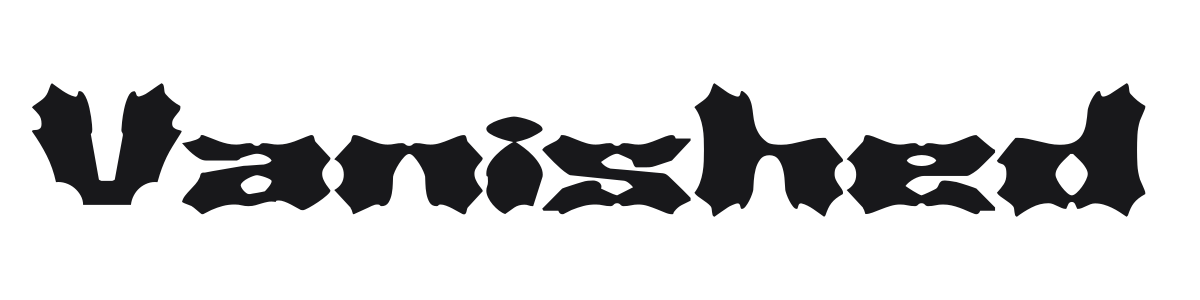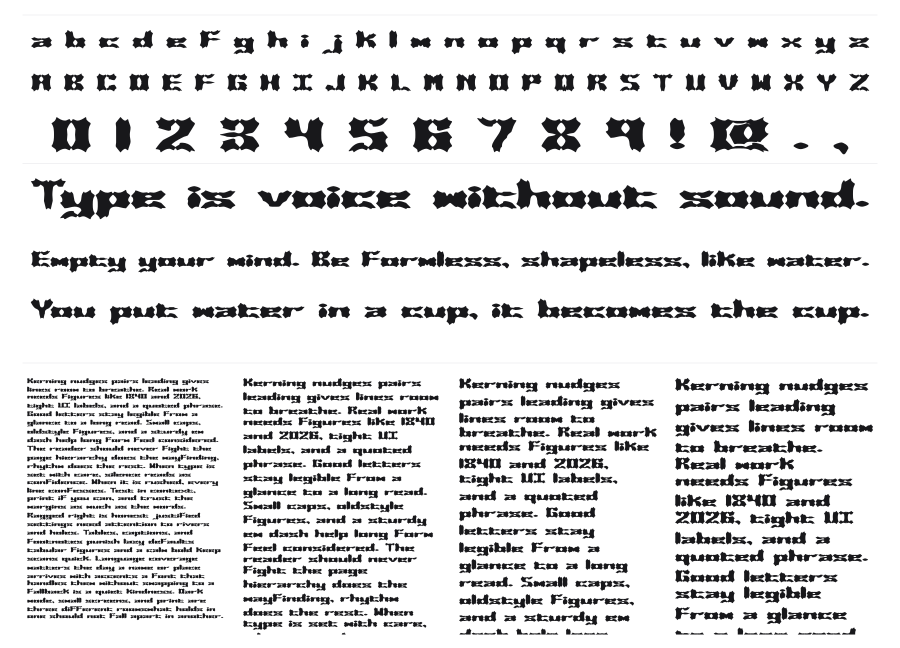
Vanished
Vanished is a heavy display font with a dark, decayed character drawn from gothic and blackletter traditions. Sharp notches and irregular cuts into the thick strokes give it a crumbling, unsettling quality that sets it apart from standard horror or metal typefaces. Best used large, where the gritty detail reads clearly.